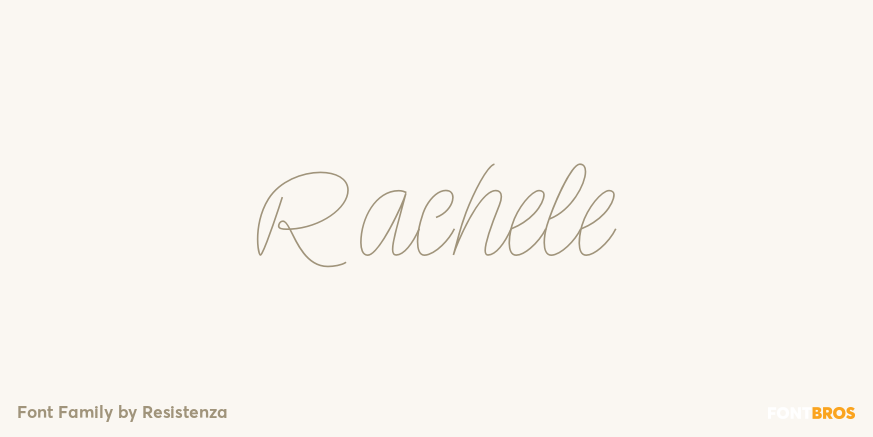
Rachele is a thin monoline script font family inspired by the cute ?Italian Bella Scrittura? handwriting, but influenced by Spencerian. Ornaments and ligatures make this hand more expressive offering round stroke endings and a flowing shape. Rachele…